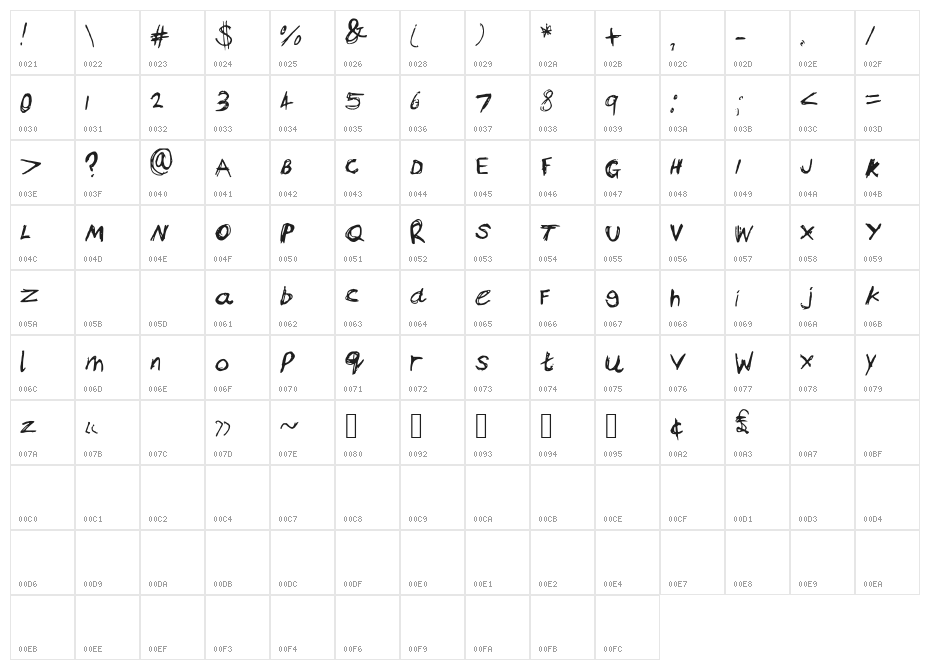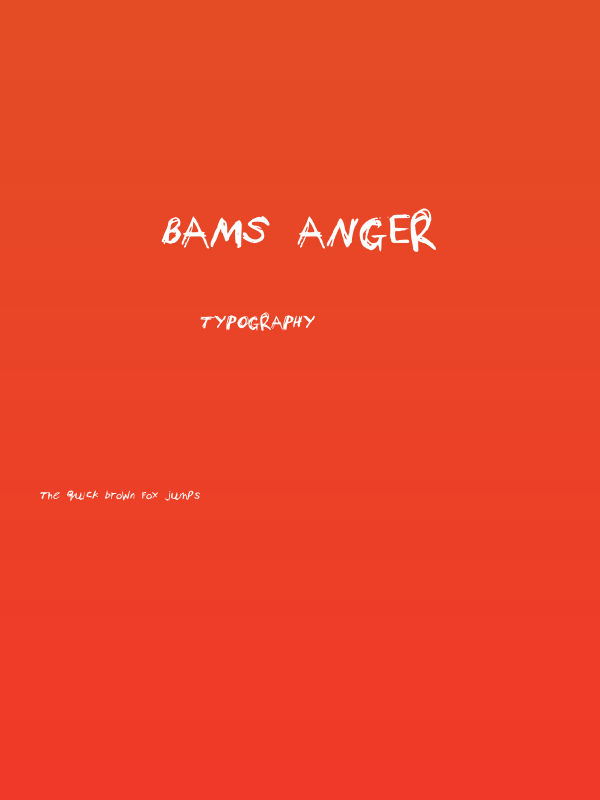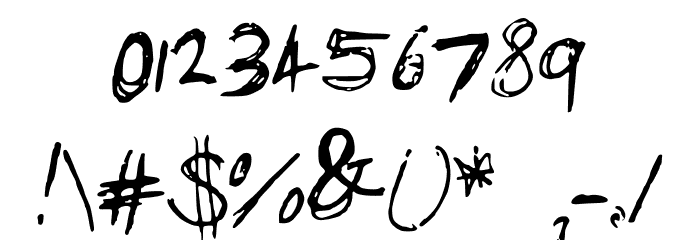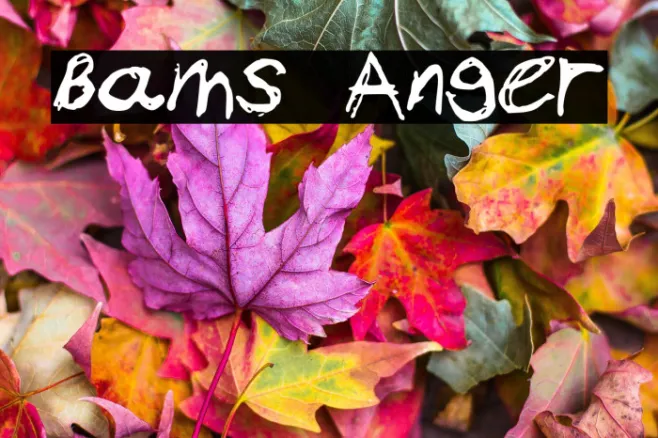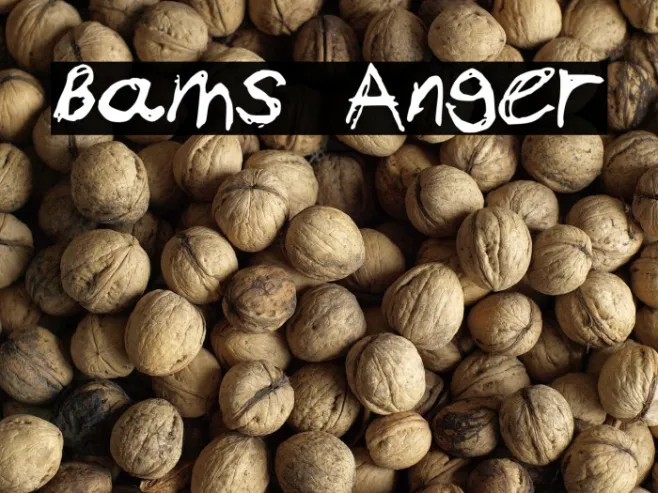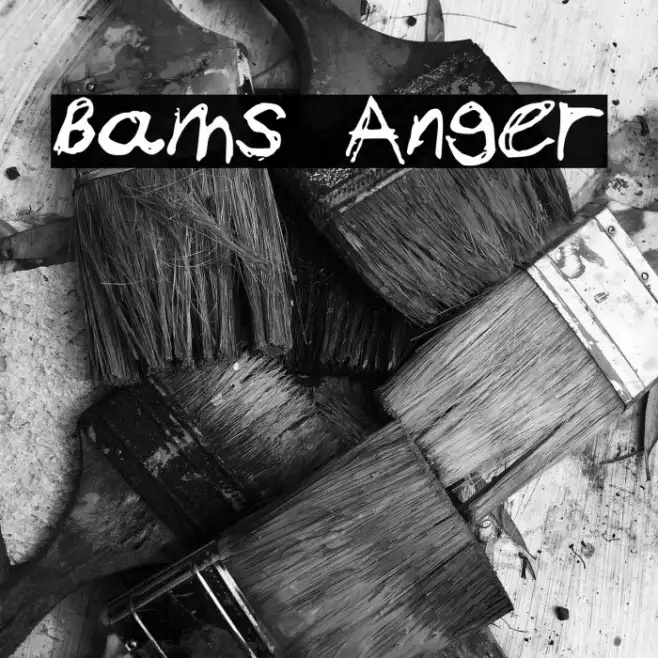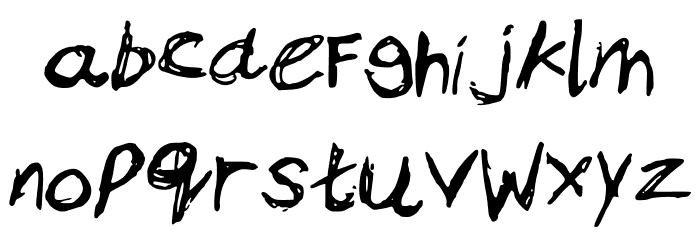
Bams Anger Font
Bams Anger Description
This font exudes a raw, expressive energy with its bold, brush-like strokes that give it a hand-painted appearance. The letters are irregular and dynamic, with varying thicknesses that create a sense of movement and intensity. The uppercase and lowercase characters maintain a consistent style, while the numbers and special characters integrate seamlessly with the overall design. This font's unique style makes it stand out, offering a sense of urgency and emotion that can capture attention and convey strong messages.
| Proposed Projects | Ideal for projects that require a strong, emotional impact such as posters, album covers, or branding for edgy or artistic ventures. |